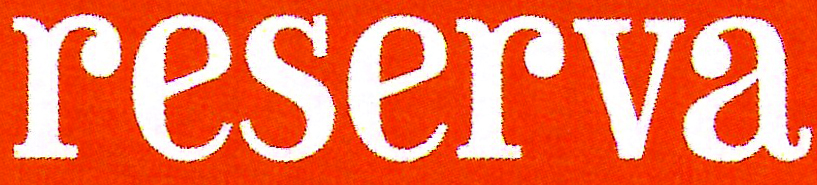
Cannot identify those fonts
Could anybody identify fonts below?
The irregularity of the »serifs« in the first image makes me suspect those may be custom letters without a complete font.
Where is that word from?
Name of a bar, they are stickers, could be custom, but not specific for this Bar.